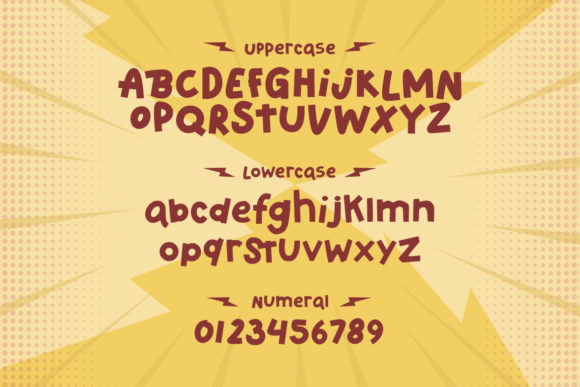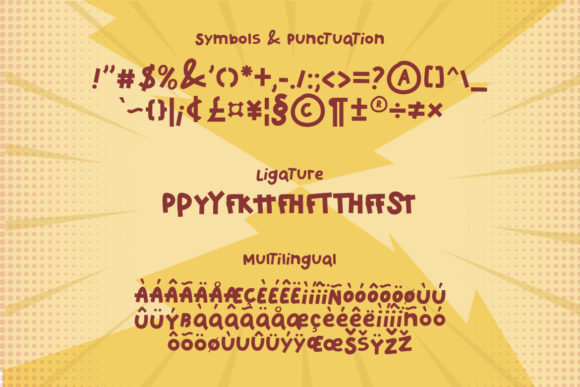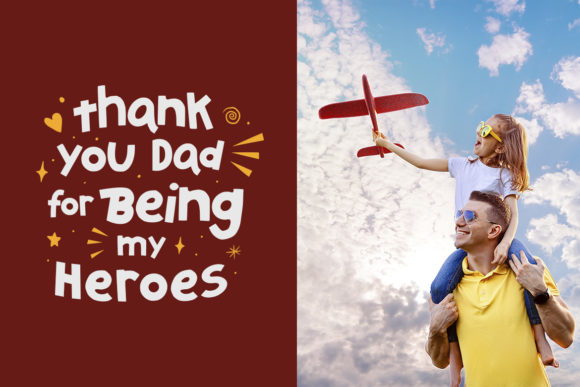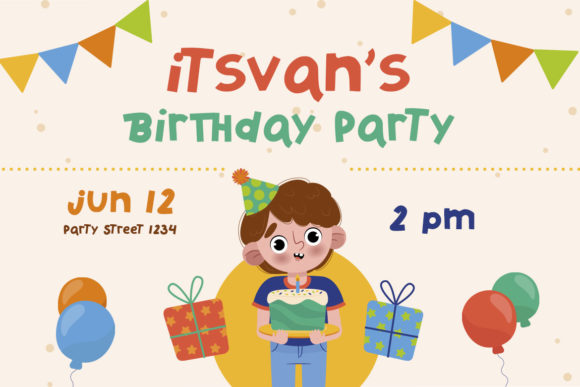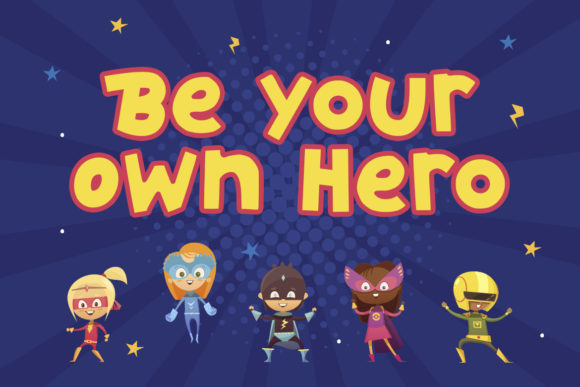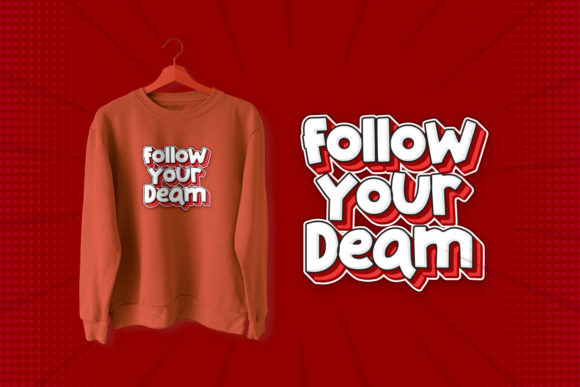
Bringing Joy to Your Creations with Big Heroes Font
Have you ever been working on a project and suddenly, that one element just wasn’t feeling quite right? Maybe it was a children’s book illustration, a cartoon-themed graphic, or even a video game design. Whatever it was, you knew exactly what was missing – a dash of fun and personality. That’s where Big Heroes Font comes in, a playful and friendly display font designed to add a lovable touch to your creations.
Big Heroes Font is more than just a font – it’s a key to unlocking the imagination and creativity of your audience. Whether you’re working on a children’s game, a cartoon series, or any other project that requires a sense of wonder and excitement, this font is an invaluable asset. With its versatility and charm, Big Heroes Font is a must-have for designers looking to add a unique and memorable touch to their work.
Big Heroes Font Key Features
- Font Family: Big Heroes Font is a custom-designed font with a unique, bold, and playful style.
- Font Size: Supports font sizes from 8pt to 120pt, making it suitable for various design applications, including signage, posters, and digital displays.
- Resolution: Designed for high-resolution displays, including 4K and Retina displays, ensuring crisp and clear text rendering.
- Unique Characteristics: Big Heroes Font features a distinctive, hand-drawn style with bold lines and playful curves, making it ideal for creating eye-catching and engaging designs.
Designer Review: Big Heroes Font
Overall, I have mixed feelings about the Big Heroes Font. While it’s an interesting take on the superhero font genre, it falls short in some areas. Let’s dive in and explore what works and what doesn’t.
What works well: ✨ The font’s bold, dynamic feel is perfect for action-packed titles and headings. It’s clear that the designer was going for a comic book-inspired look, and they largely succeed. The font’s thick lines and sharp edges give it a real sense of energy.
What works well: ✨ The font’s versatility is another plus. It’s available in a range of weights, from light to heavy, which makes it suitable for a variety of applications. You can use it for titles, headings, or even body text in certain contexts.
Limitations: ⚠️ One major issue with the Big Heroes Font is its lack of subtlety. It’s a very “in-your-face” font, which may not be suitable for all designs. Additionally, some of the letterforms can be a bit clumsy, particularly in the heavier weights.
Limitations: ⚠️ The font’s limitations become even more apparent when it comes to smaller text sizes. At these sizes, the font can become difficult to read due to its thick lines and complex letterforms.
- Perfect for action-packed titles and headings
- Versatile with a range of weights
- Lack of subtlety may be a drawback
- Can be difficult to read at smaller text sizes
Tips for Getting the Most Out of Big Heroes Font
Big Heroes Font is ideal for creating bold, eye-catching headlines and titles.
Use it to add a sense of drama and heroism to your designs.
Experiment with different font sizes and colors to create a unique look.
Big Heroes Font is commonly used for:
Headlines and titles
Movie and video game posters
Comic book covers
Advertising and marketing materials
Q: What is the font weight range for Big Heroes Font?
The Big Heroes Font supports a range of font weights, from 100 to 900, allowing designers to choose from light, regular, bold, and extra-bold styles to suit their design needs.